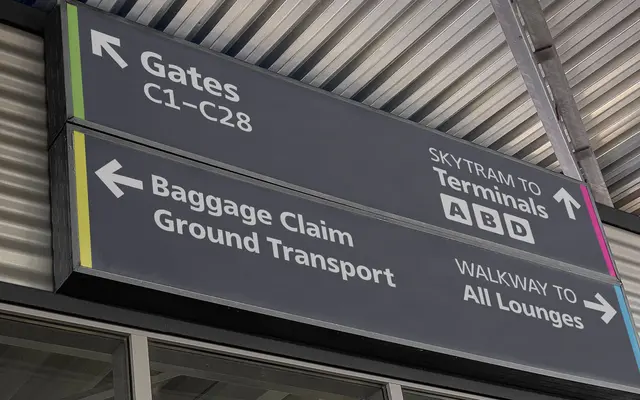
Human Sans
Positype · Neil Summerour · 2026
A humanist sans serif by Neil Summerour built across 80 styles and seven writing systems, spanning Thin to Ultra with narrow and condensed subfamilies.
Designed by Neil Summerour with collaborator Potch Auacherdkul, Human Sans is described by Positype as a typographic workhorse drawn and redrawn over several years from the roots of an earlier Positype design. Eighty styles span eight weights from Thin to Ultra, each with matching italics, and the family extends into Narrow and Condensed subfamilies for tighter measures. Script coverage is unusually broad, reaching Latin, Cyrillic, Greek, Japanese, Khmer, Lao and Thai.
The foundry explicitly describes it as a humanist sans serif, and the letterforms shown across weights reflect the open, calligraphic warmth characteristic of that subcategory.